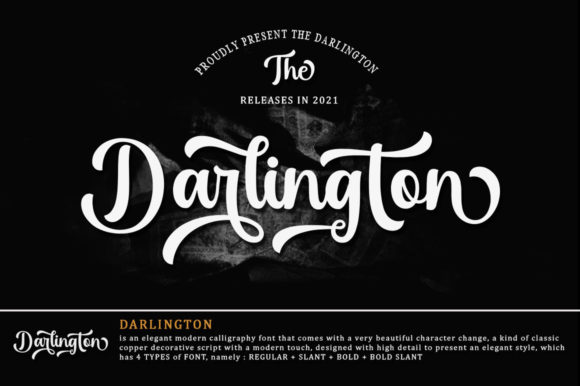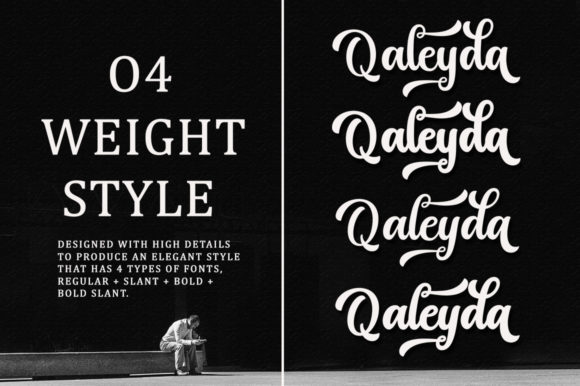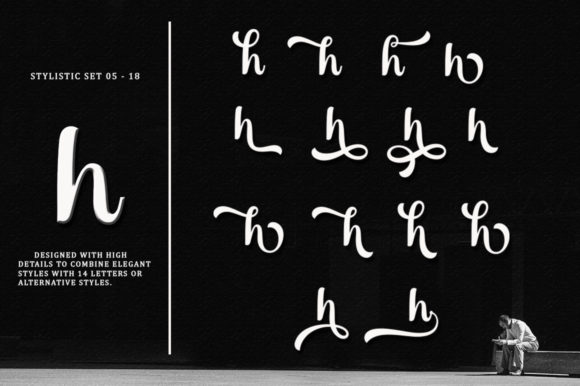
Darlington Font: Elegant Calligraphy for Wedding Invitations & Branding
About the Darlington Font
Welcome to the world of Darlington Font, a typeface that will inspire your next great project. Darlington is one of the elegant calligraphy fonts that comes with a very beautiful character change, a kind of classic decorative script with a modern touch, designed with high detail to present an elegant style
Darlington is attractive because the typeface is pleasing to the eye, clean, feminine, sensual, glamorous, simple, and very easy to read. Classic style is very suitable to be applied in various formal forms such as invitations, labels, restaurant menus, logos, fashion, makeup, stationery, novels, magazines, books, greeting/wedding cards, packaging, labels, or all kinds of advertising purposes.
Darlington Font Usage Examples
Darlington Font Example